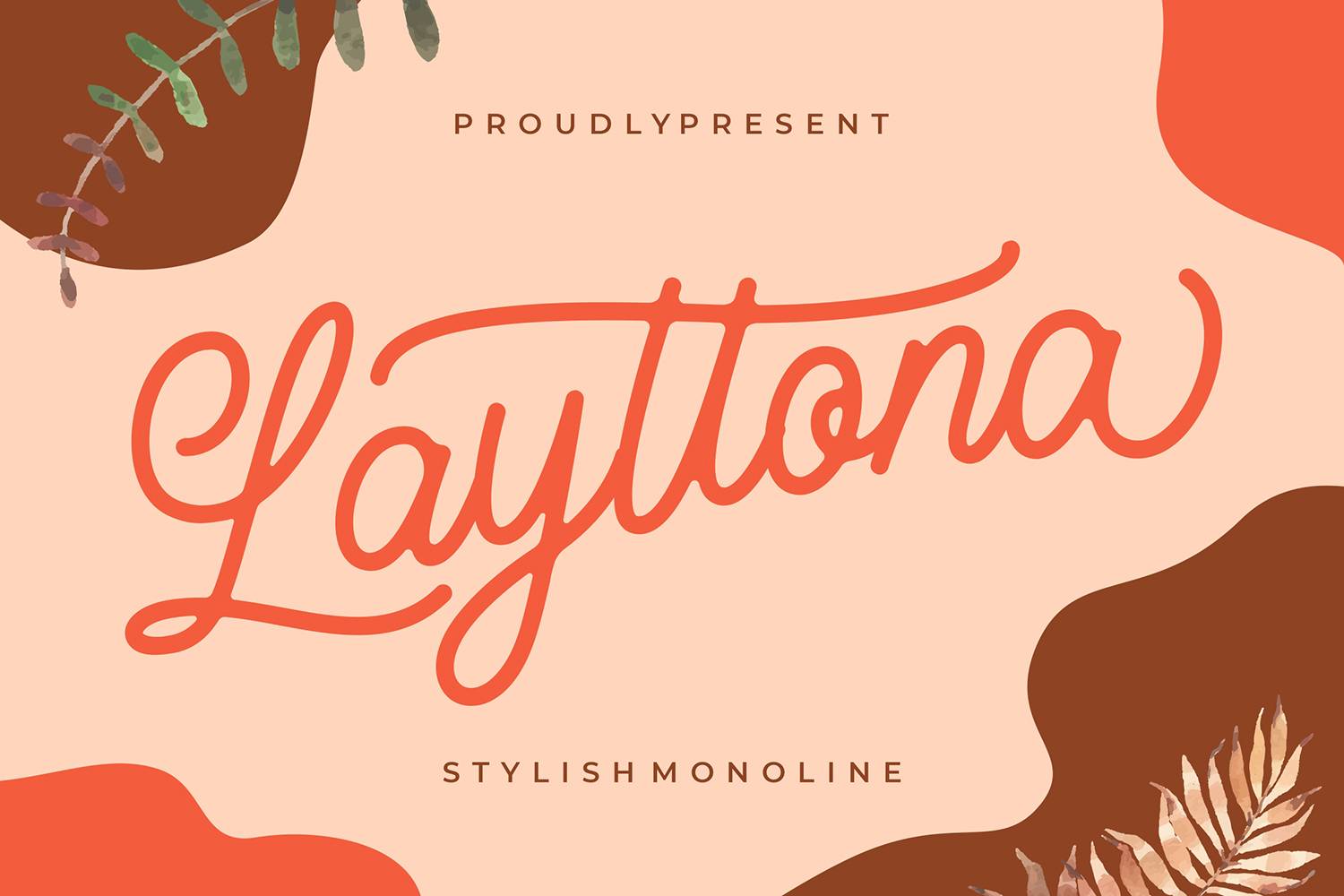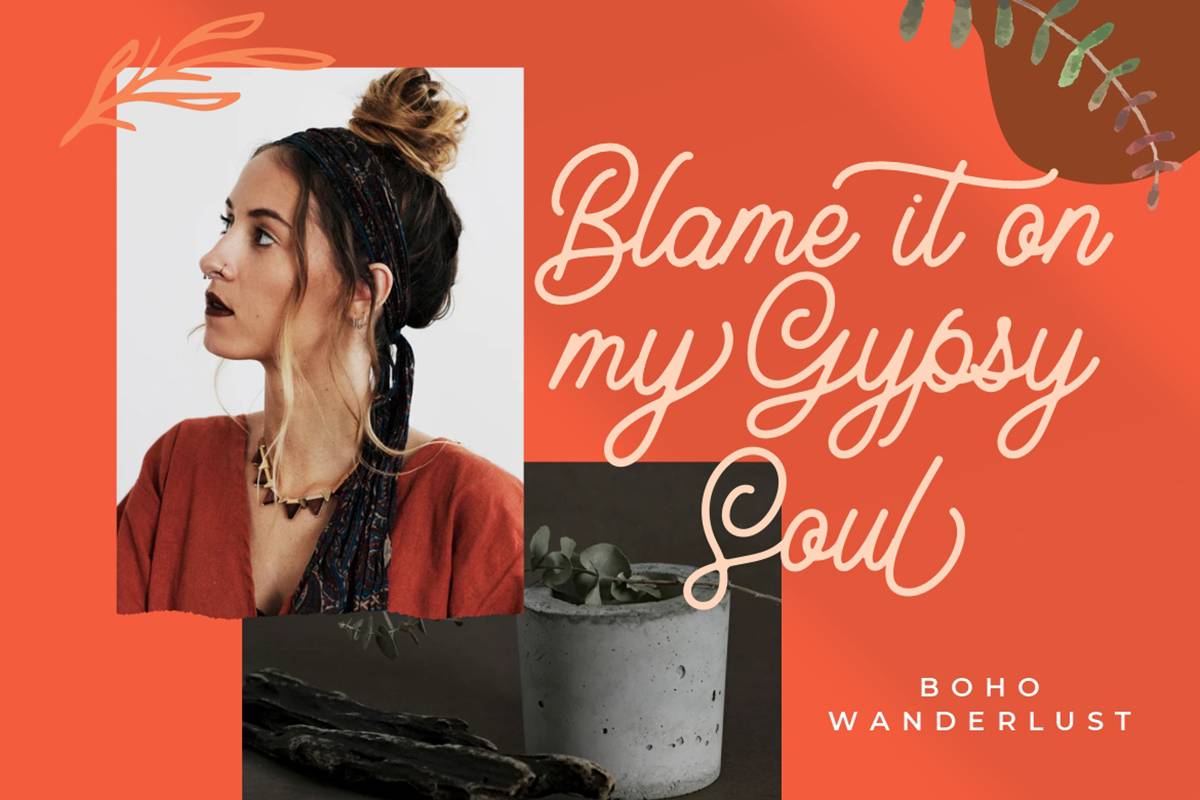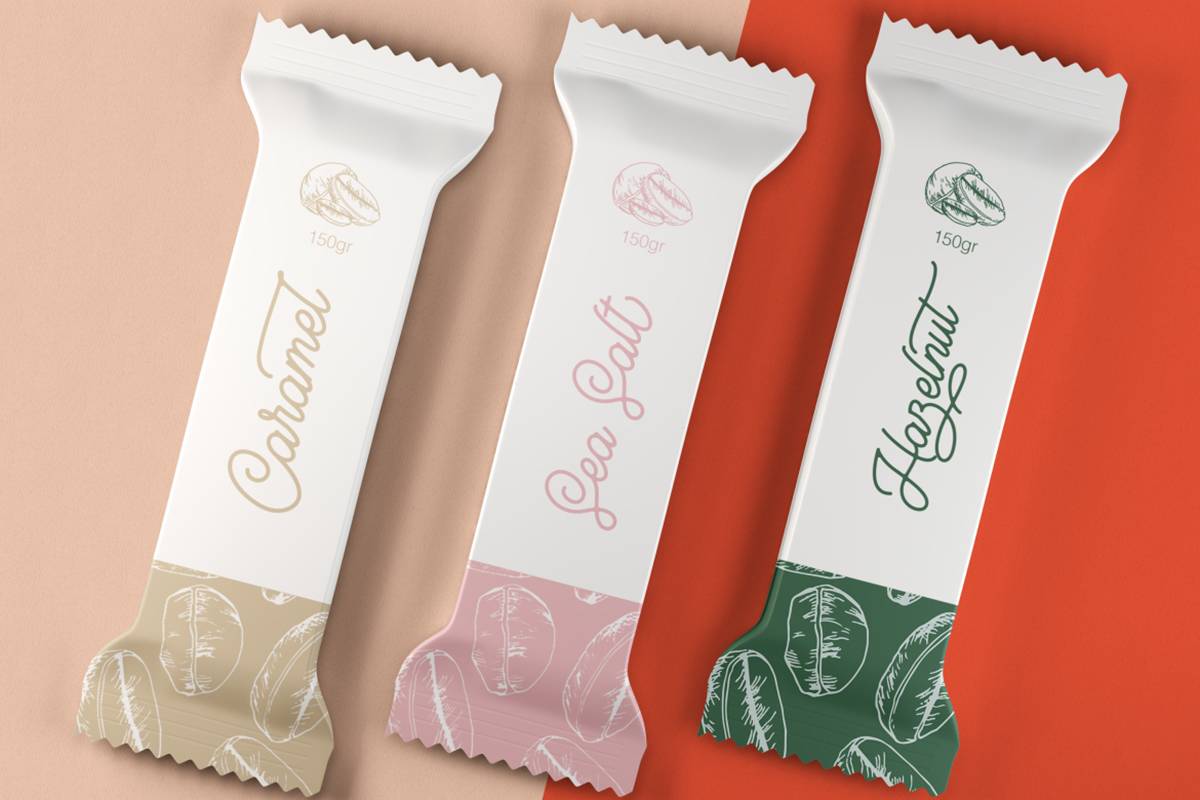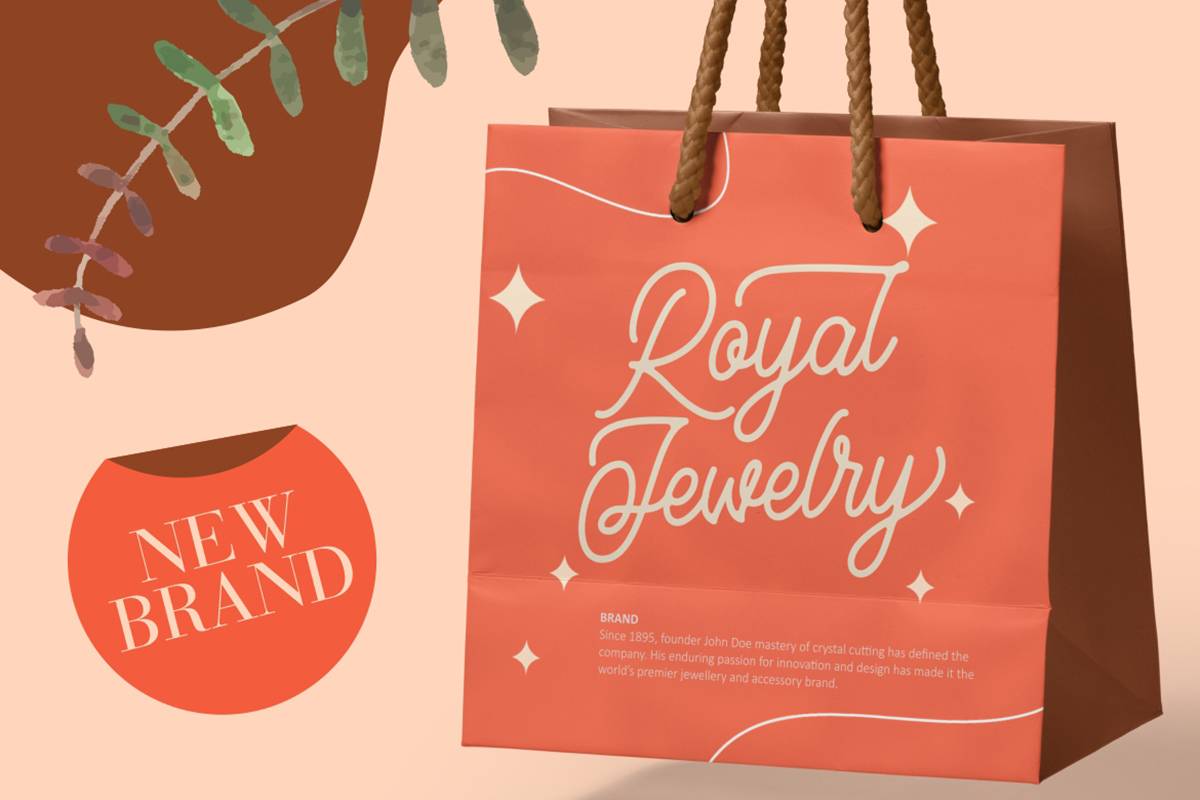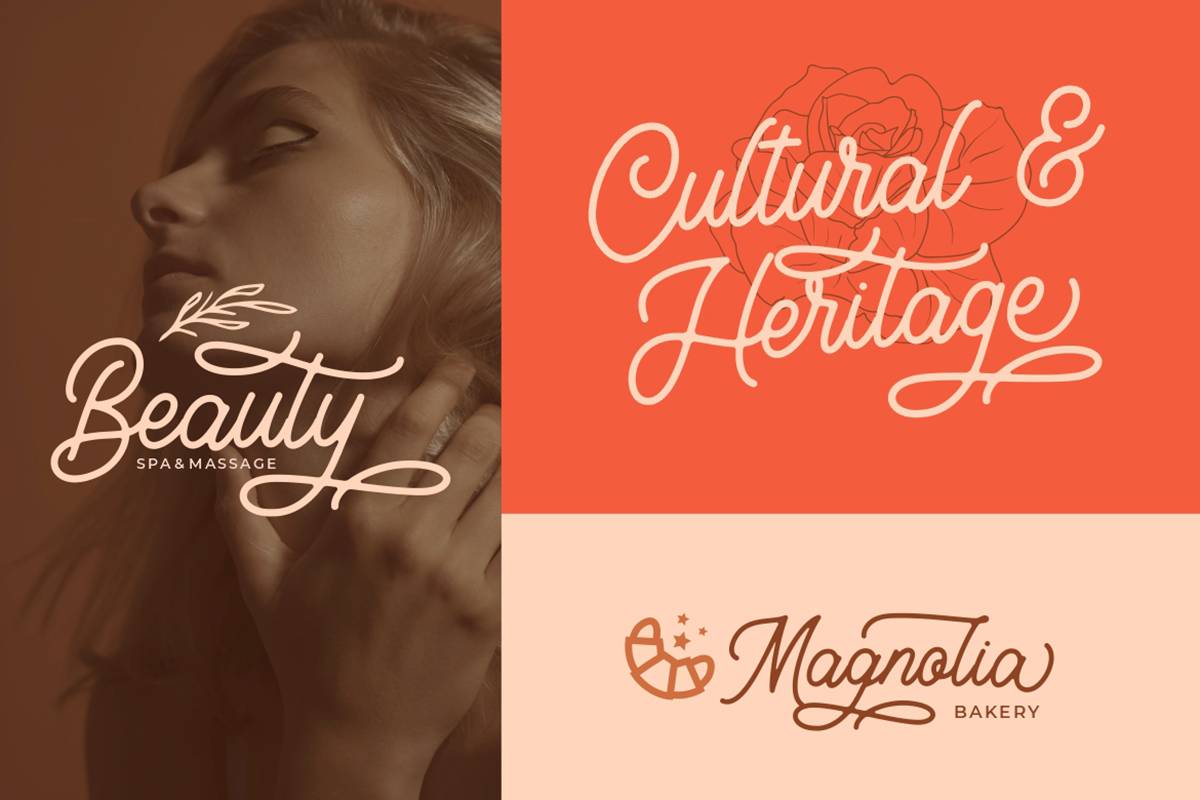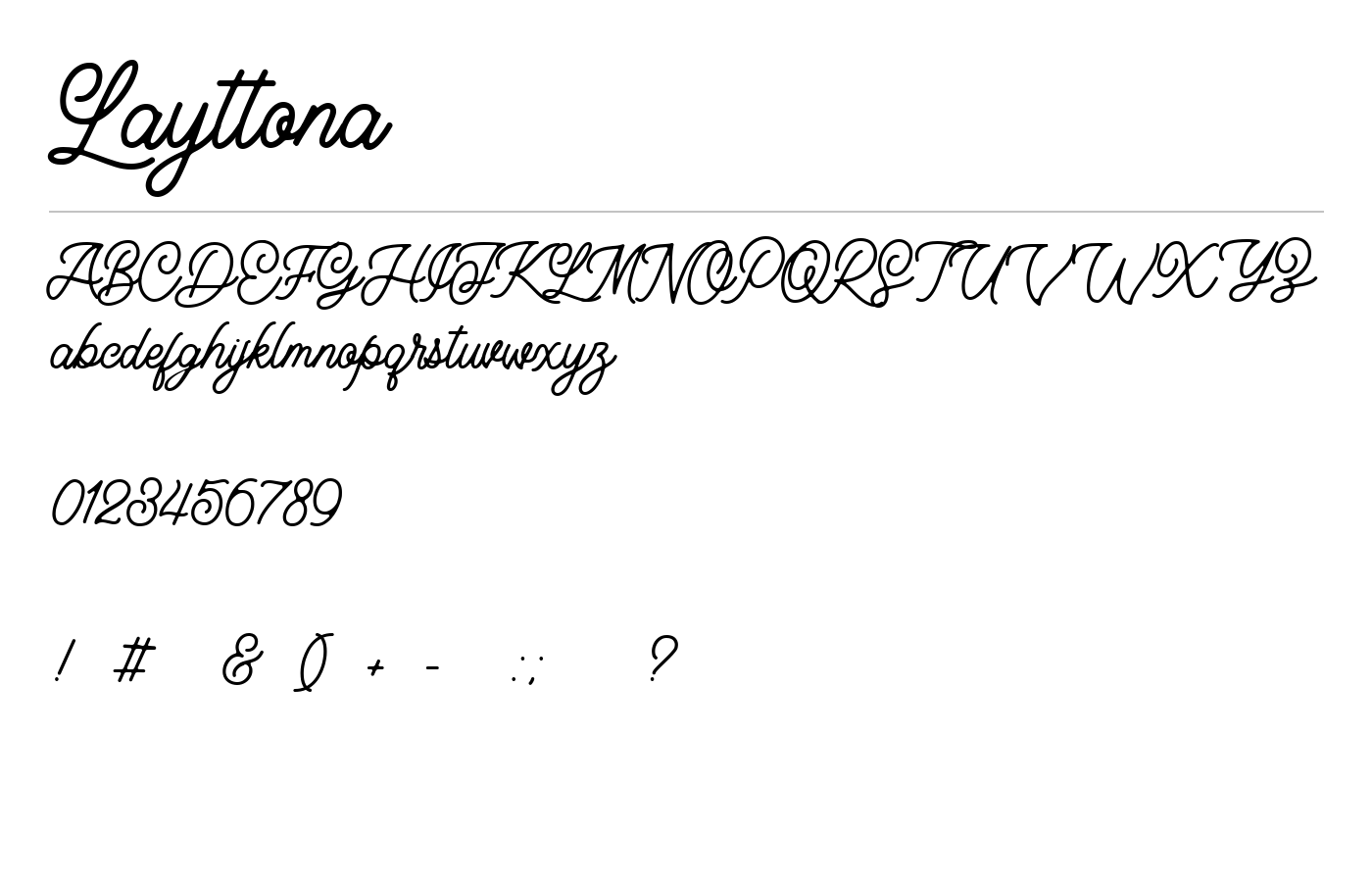
Layttona is a delicate, elegant script font characterized by its smooth, flowing lines and light weight, creating a graceful handwritten feel. Its slender, slightly condensed letterforms with subtle slant and refined curves make it perfect for adding a personal, sophisticated touch to invitations, branding, and editorial headlines. This font works beautifully where a stylish yet approachable script is needed to convey charm and refinement.
Layttona Font